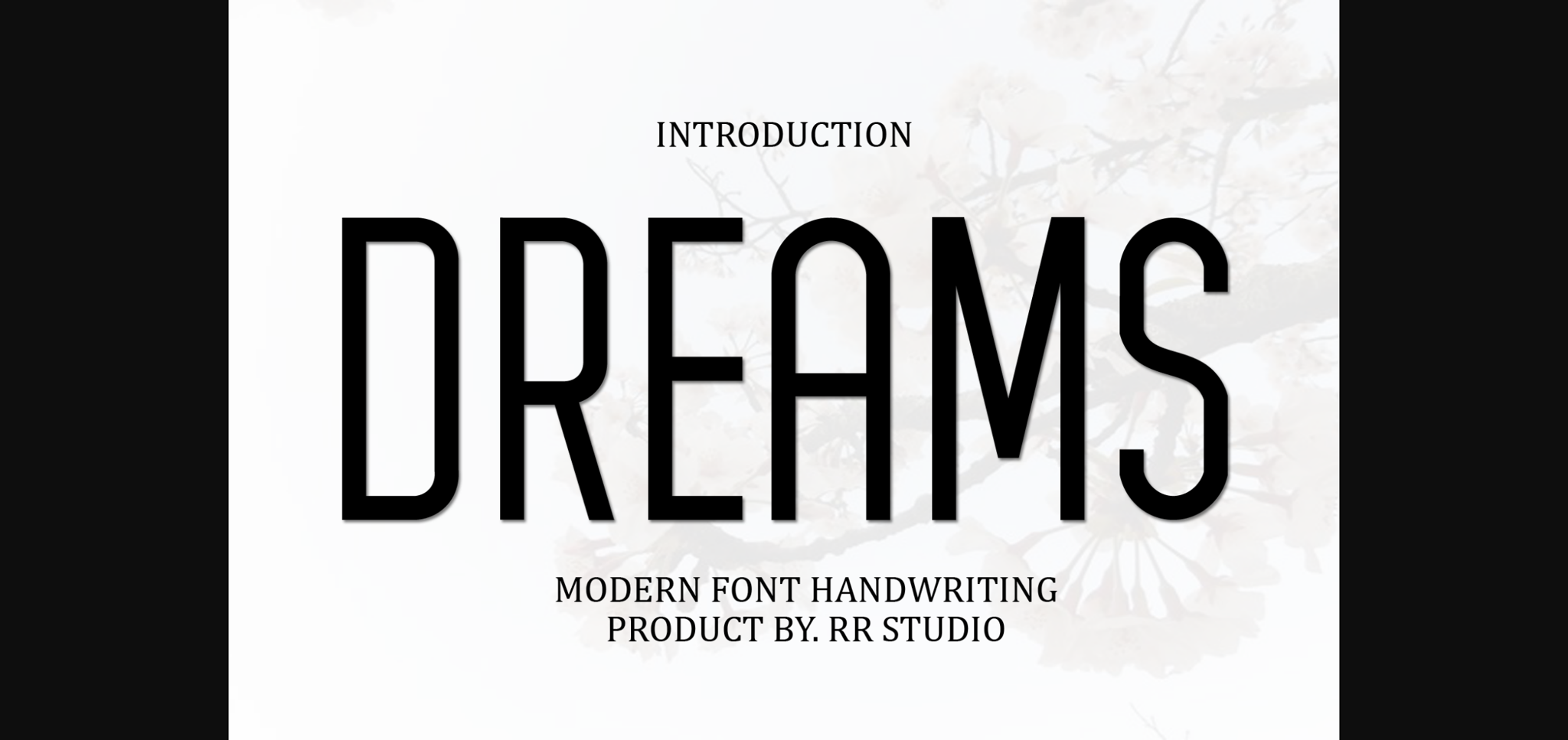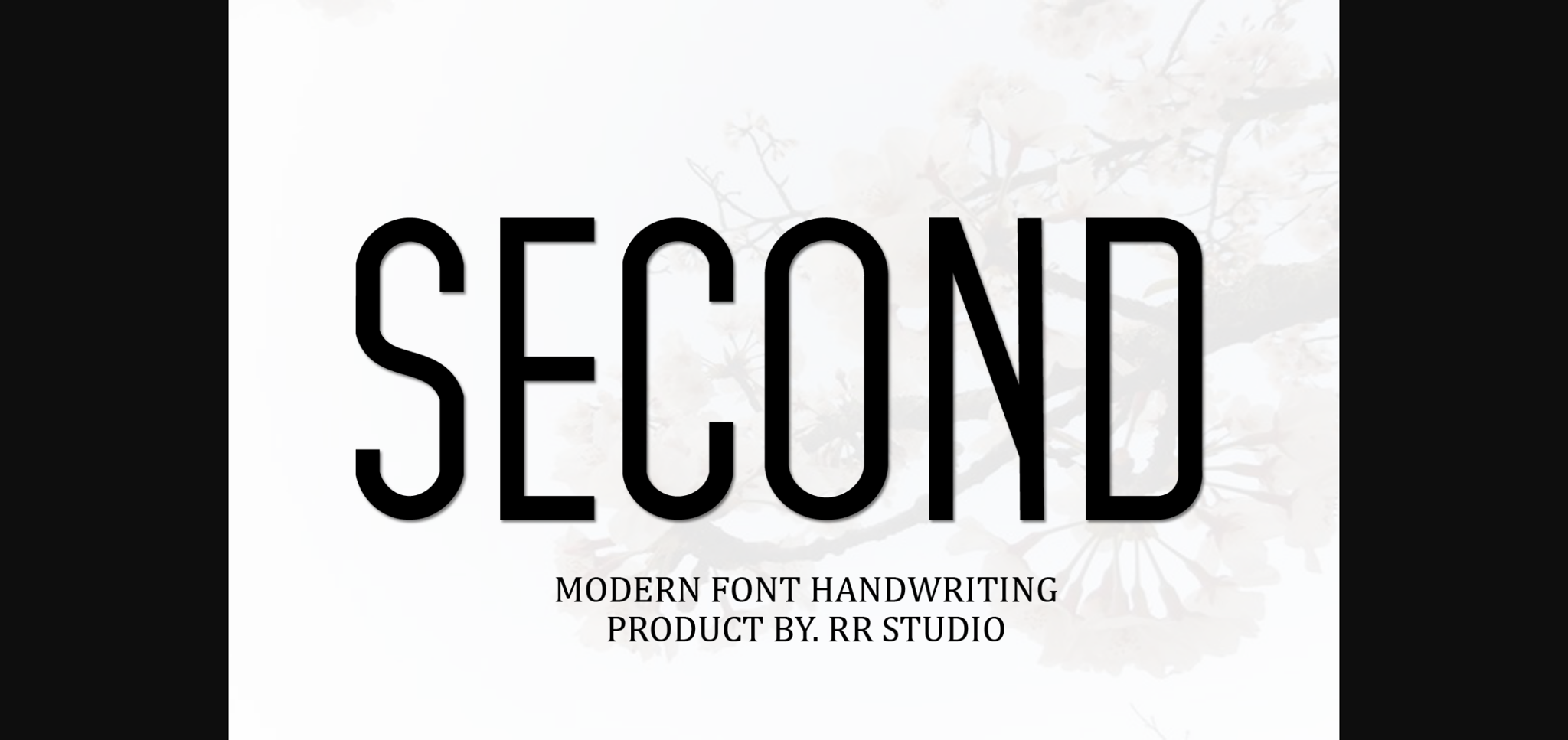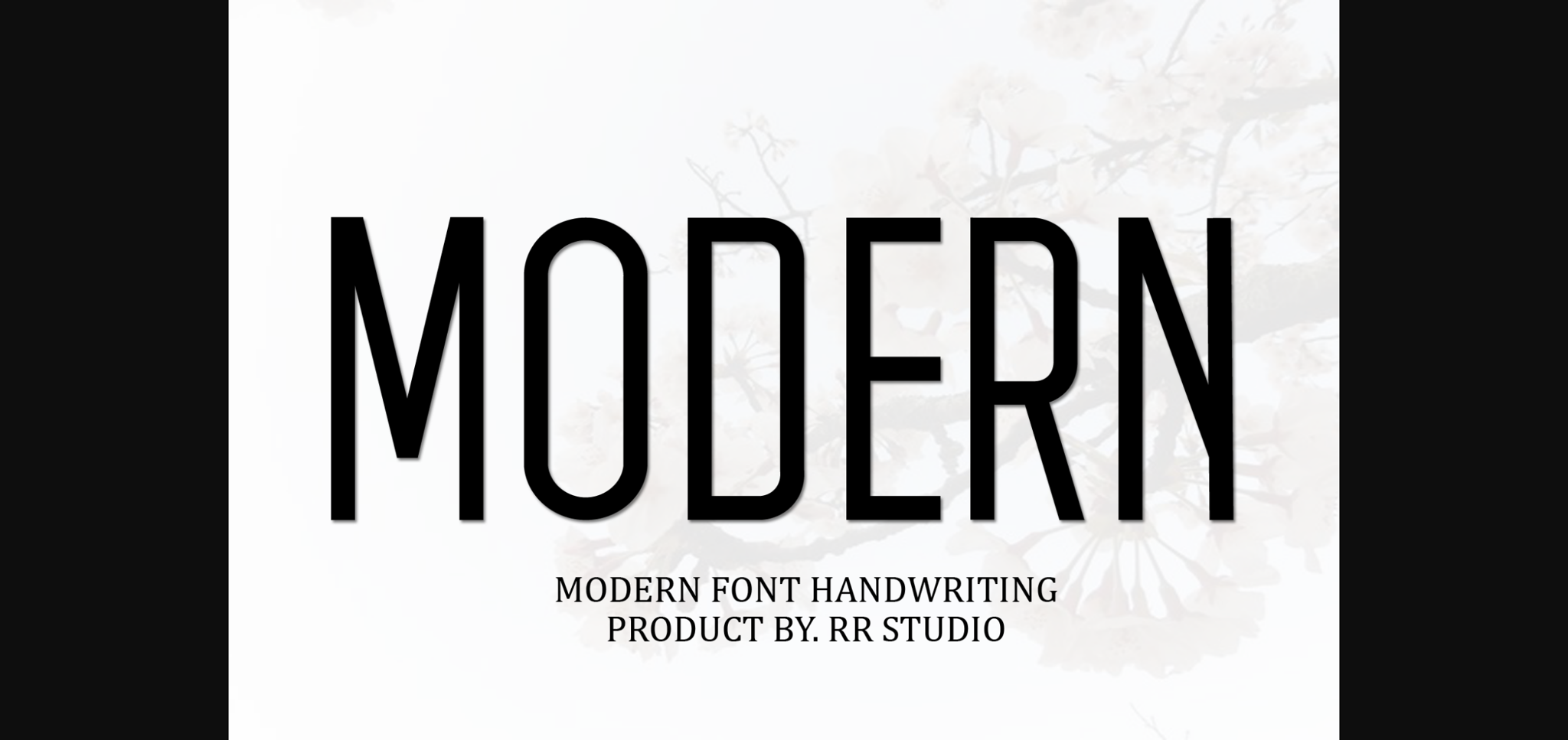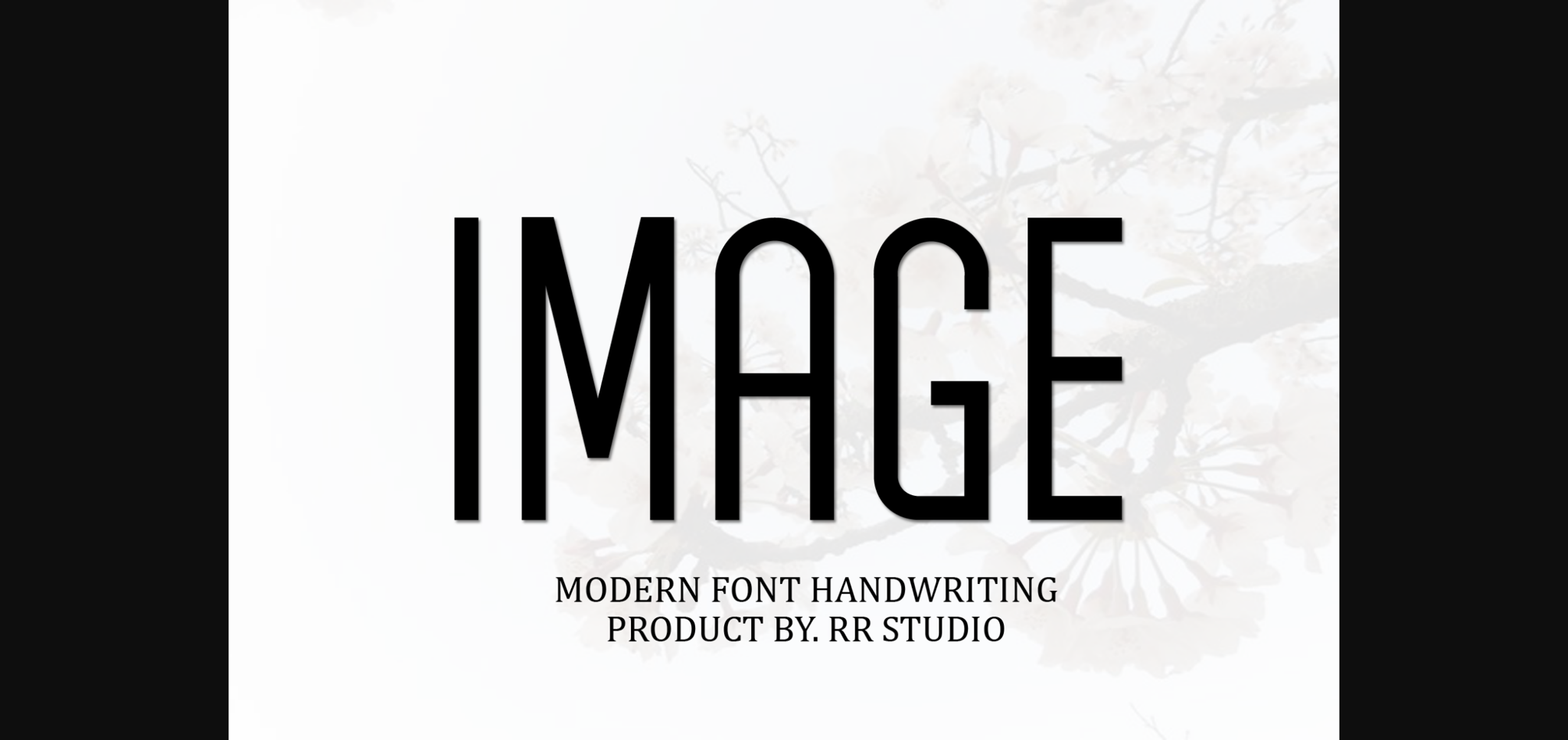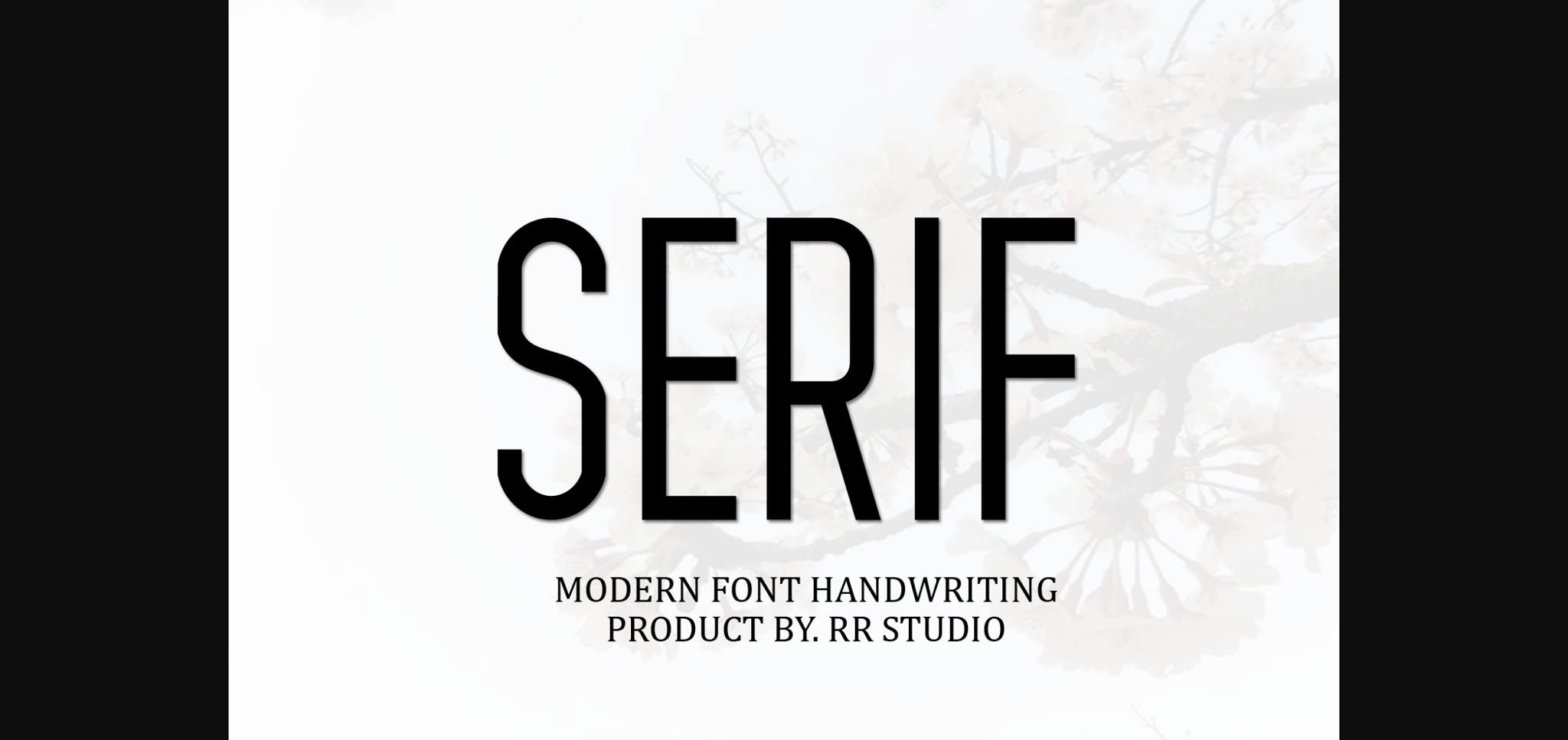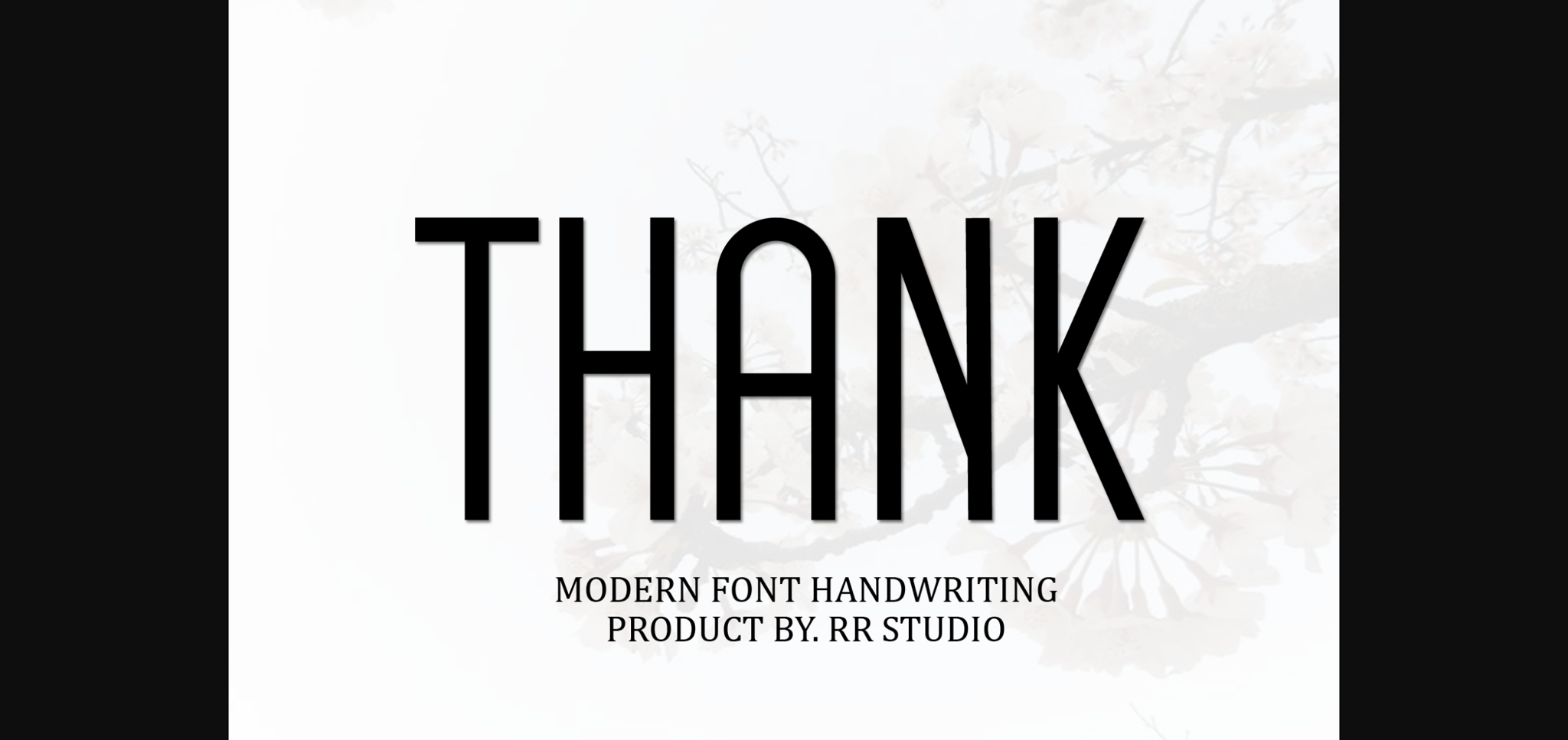
HomeSans Serif FontsDreams Font Sans Serif Fonts Dreams Font FacebookXPinterestWhatsApp 1 of 8 ... Dreams Font Poster 2... Dreams Font Poster 3... Dreams Font Poster 4... Dreams Font Poster 5... Dreams Font Poster 6... Dreams Font Poster 7... Dreams Font Poster 8... About Dreams Font Dreams is a stylish and incredibly elegant sans serif font. It looks stunning on wedding invitations, thank you cards, quotes, greeting cards, logos, business cards and every other design which needs a handwritten touch. DOWNLOAD NOW People also explored Monoline Font Alica Font Nora’s Blooming Font Hai Julie Font Hot Nice Font Hollow Font Hope Font Happy Birthday Font Overscats Font 302 0 TagsDreamsDreams Font Previous articleSonice FontNext articleMother Modern Font LEAVE A REPLY Cancel reply Comment: Please enter your comment! Name:* Please enter your name here Email:* You have entered an incorrect email address! Please enter your email address here Website: Save my name, email, and website in this browser for the next time I comment. Personal Use Free Eva Personal Use Free Read more about this font Rocketto Personal Use Free Read more about this font Critical Personal Use Free Read more about this font Special Day Personal Use Free Read more about this font BLOG How to Install and Use Fonts on Windows, macOS, and Web Projects How to Install and Use Fonts on Windows, macOS, and Web Projects Fonts are a crucial part of design and branding. Whether you’re designing a... Top 10 Handwritten Fonts That Elevate Your Designs Free Fonts Risk: Why Free Fonts Can Be Dangerous for Designers Elegant Wedding Invitation Fonts – Handwritten & Script Fonts